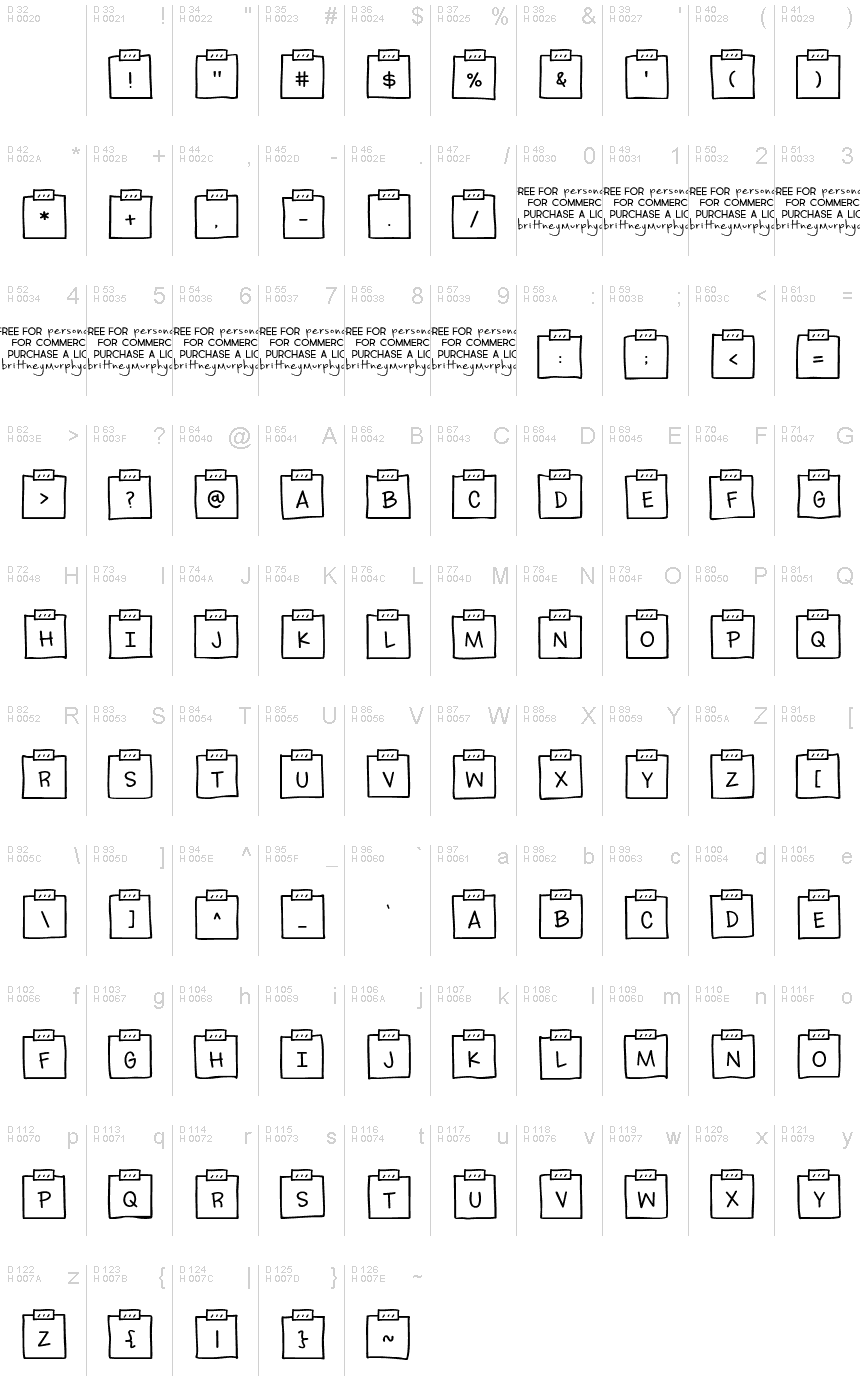
Sticky Memos Demo
Introducing Sticky Memos, the beautifully crafted decorative display font designed by Brittney Murphy Design. Its light weight and eye-catching style make it perfect for adding flair to any project. Use it for invitations, posters, or any creative design that needs a touch of personality. Emphasize important details with this unique font, and watch your message stick in the minds of your audience. Whether you're designing for a music festival or a trendy cafe, Sticky Memos is sure to make your project stand out from the crowd. Try it today and add some personality to your next project!
The Sticky Memos font family is a cute sticky note font in three styles: regular (sticky notes with tape), two (sticky notes with tape filled in), and plain (sticky notes with no tape). Use it to add some fun to your worksheets and planners!
Font contains over 300 characters and supports most Latin-based languages.